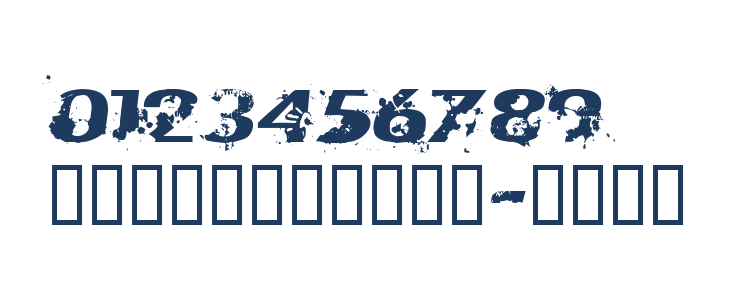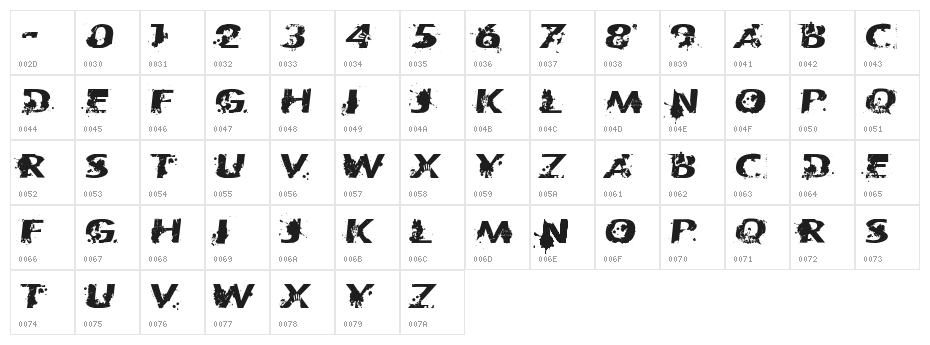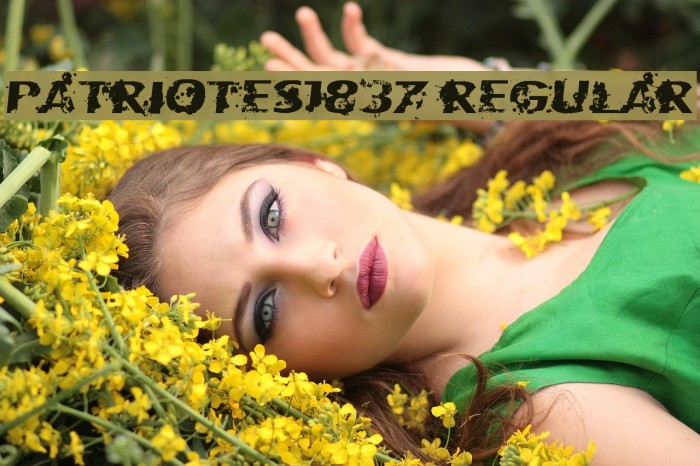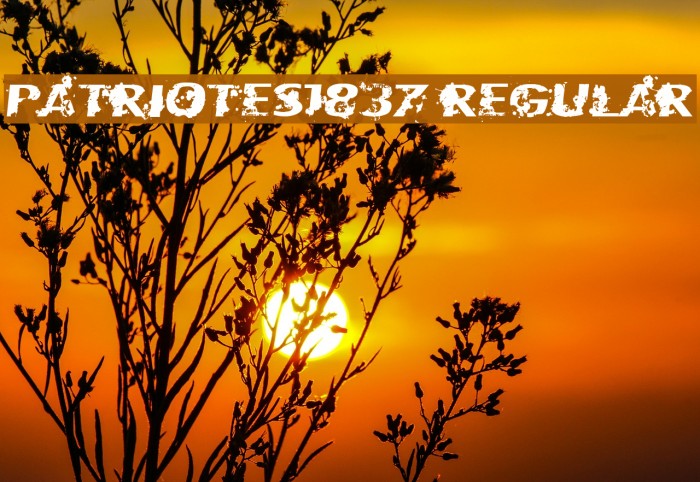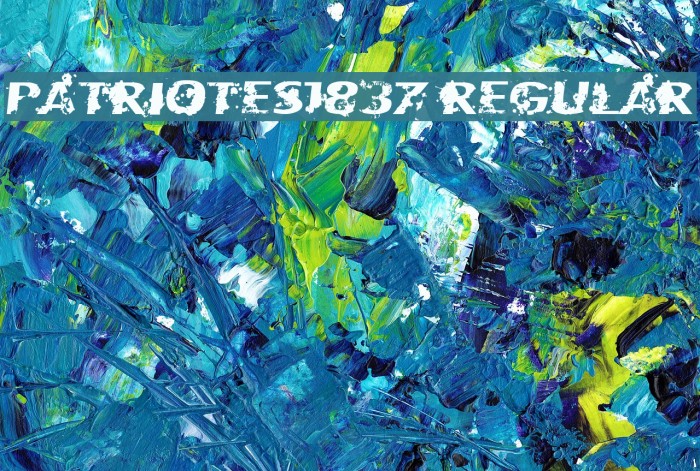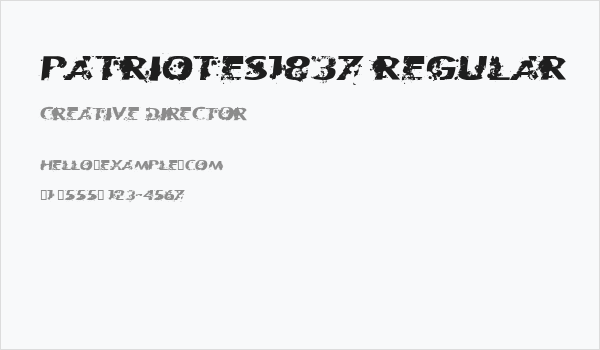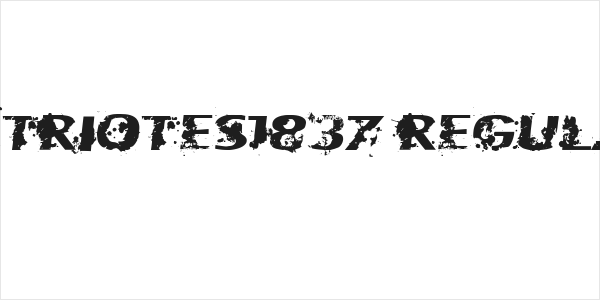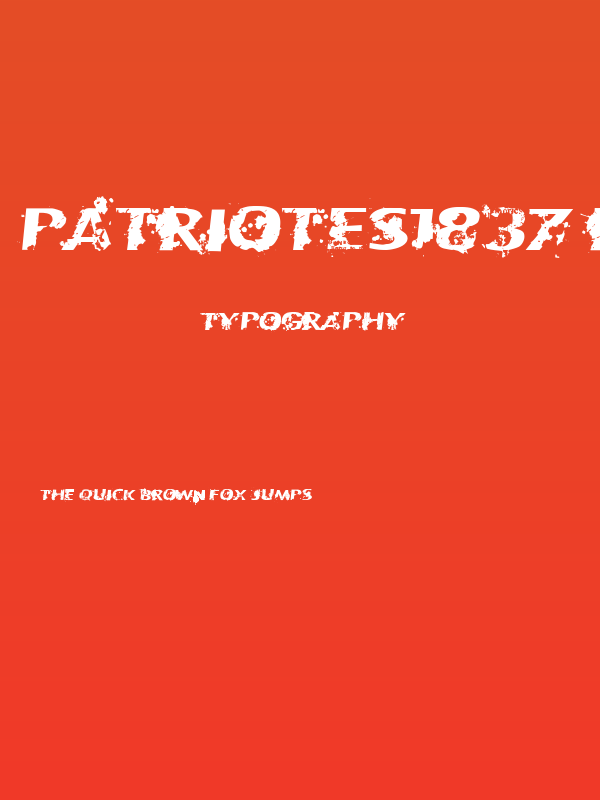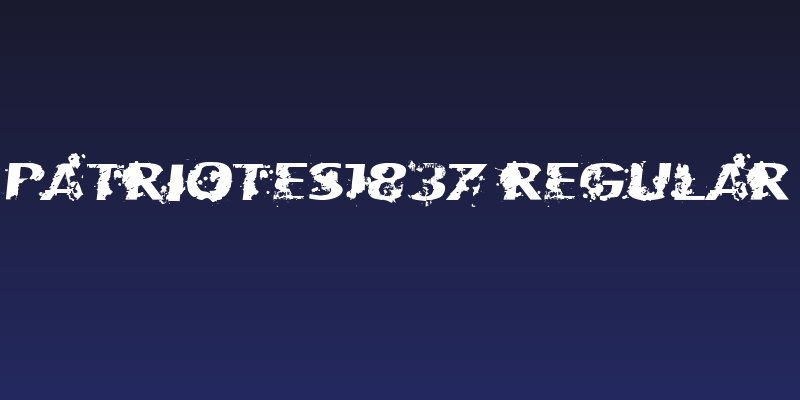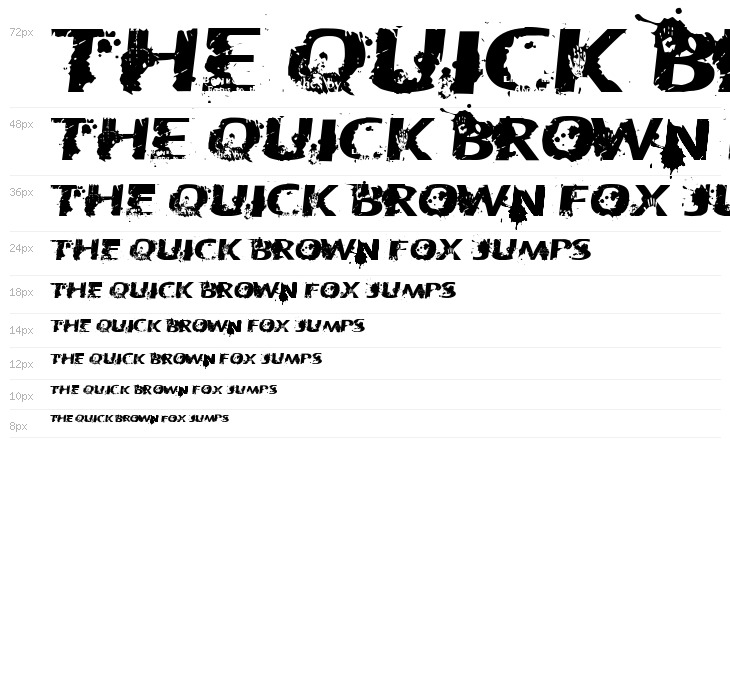
Patriotes1837 Regular Font
Patriotes1837 Regular Description
This font features a distressed and grungy style, with a bold and impactful appearance. The characters are heavily textured, giving them a worn and weathered look, reminiscent of vintage or industrial designs. The uppercase and lowercase letters maintain a consistent style, with jagged edges and irregular patterns that add to the chaotic aesthetic. Numbers and special characters follow the same design principles, ensuring a cohesive look across all text elements. This font is ideal for projects that require a raw, edgy feel, such as posters, album covers, or branding for alternative or punk-themed events.
| Overall Style | Grunge, Vintage |
| Proposed Projects | Posters, album covers, branding for alternative or punk-themed events. |